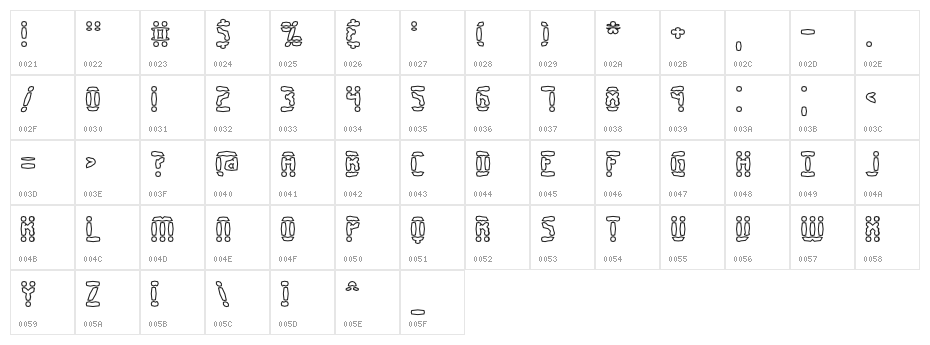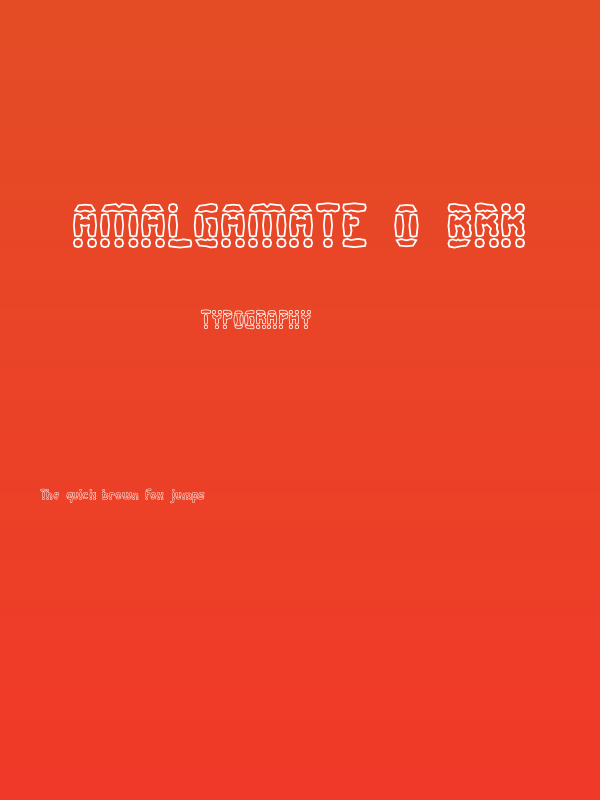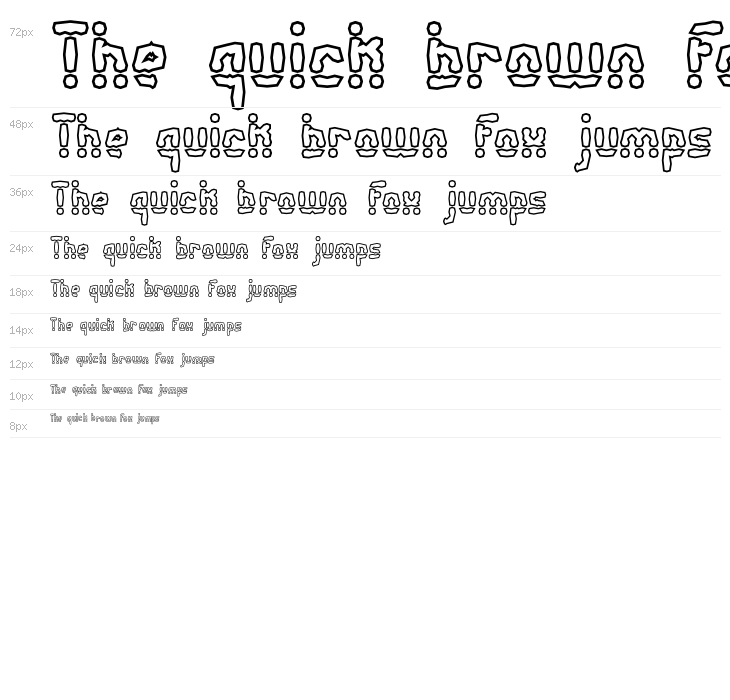
Amalgamate O BRK Font
Amalgamate O BRK Description
This font features a highly decorative and unique style, characterized by its irregular, organic shapes that resemble hand-drawn or carved elements. Each character is enclosed within a rough, uneven outline, giving it a playful and artistic appearance. The font maintains a consistent thickness throughout, with no significant contrast between strokes. It includes both uppercase and lowercase letters, numbers, and a selection of special characters. The overall impression is one of creativity and individuality, making it suitable for projects that require a distinctive and eye-catching typeface.